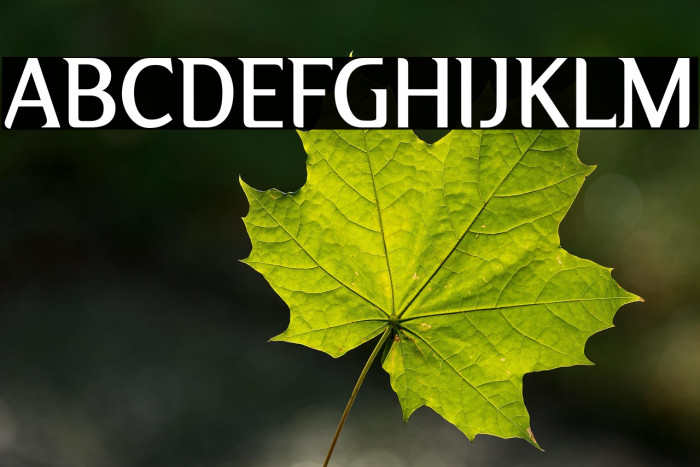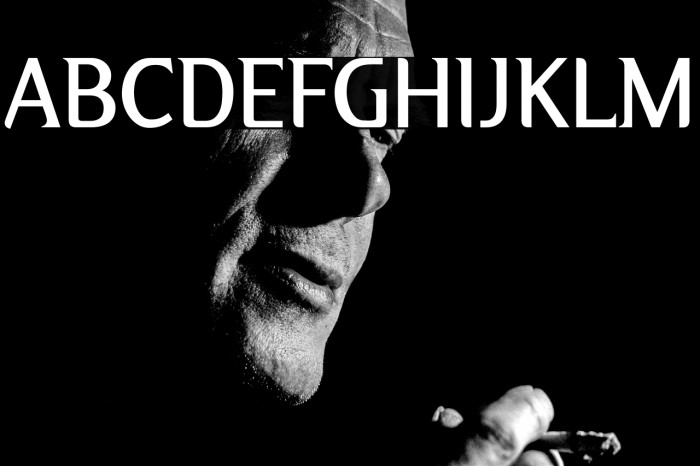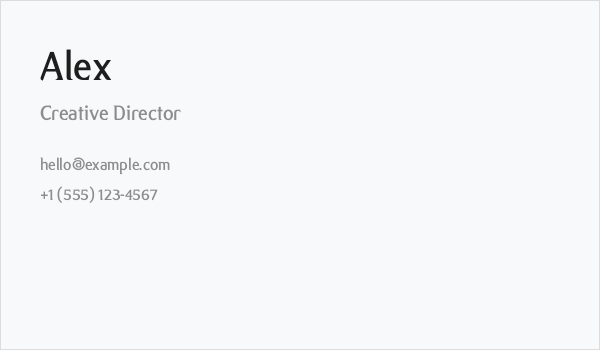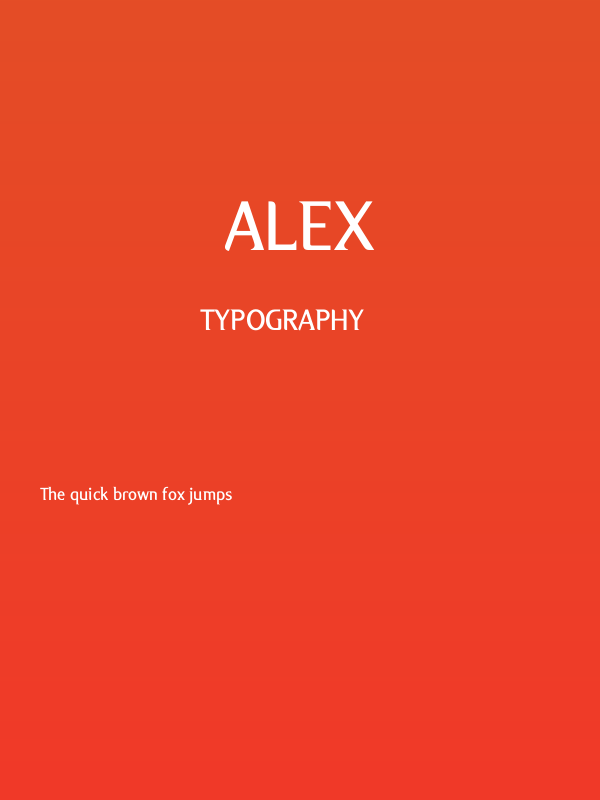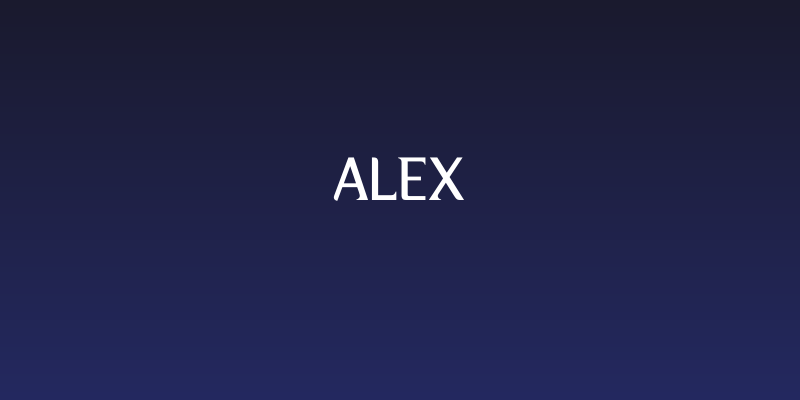
Alex Font
Alex Description
This font features a clean and modern sans-serif design, characterized by its uniform stroke width and minimalistic style. The uppercase letters are bold and assertive, while the lowercase letters maintain a consistent and harmonious appearance. The numerals are clear and legible, making them suitable for various applications. Special characters are well-defined, adding to the font's versatility. The overall design is sleek and professional, making it ideal for contemporary projects.
| Proposed Projects | Ideal for corporate branding, digital interfaces, advertising, and editorial design. |